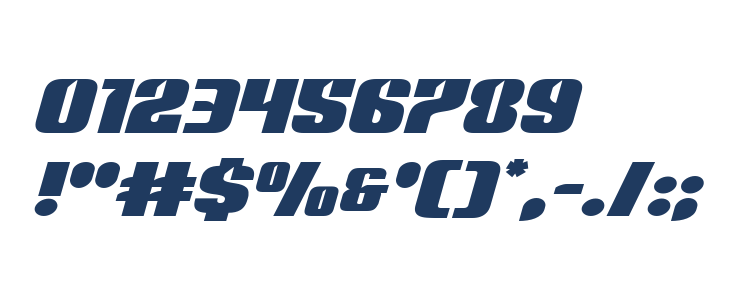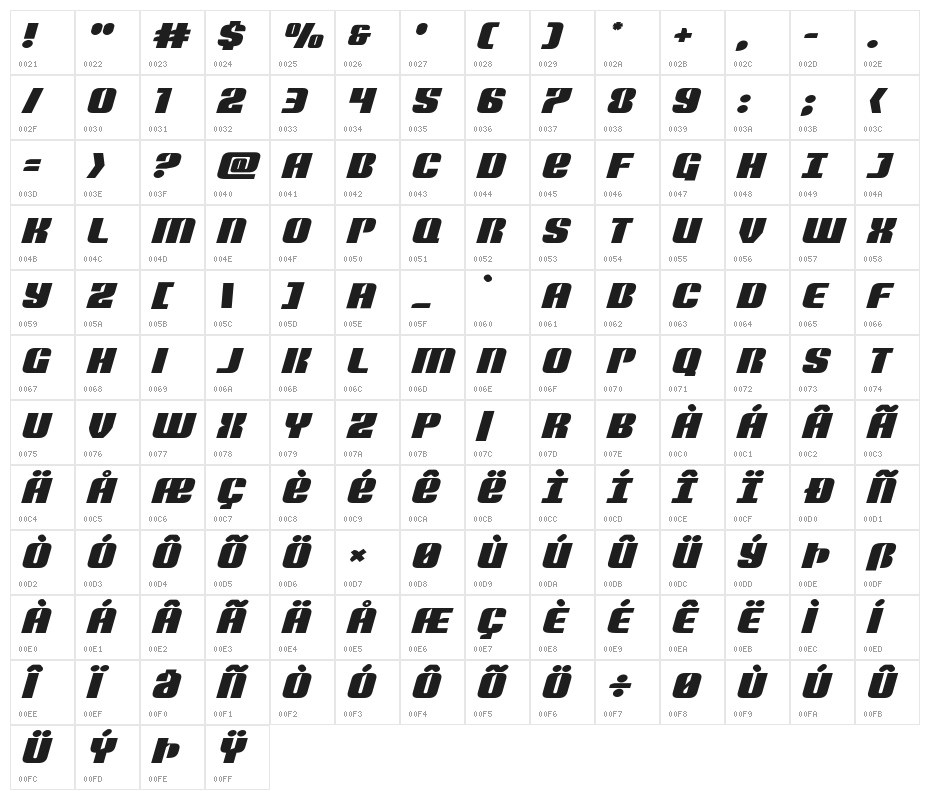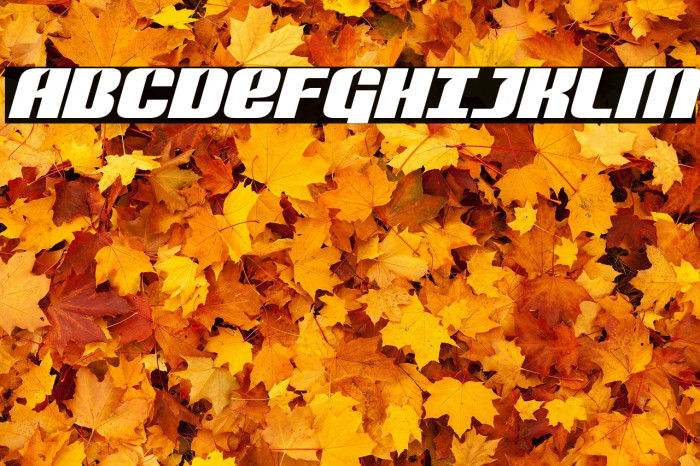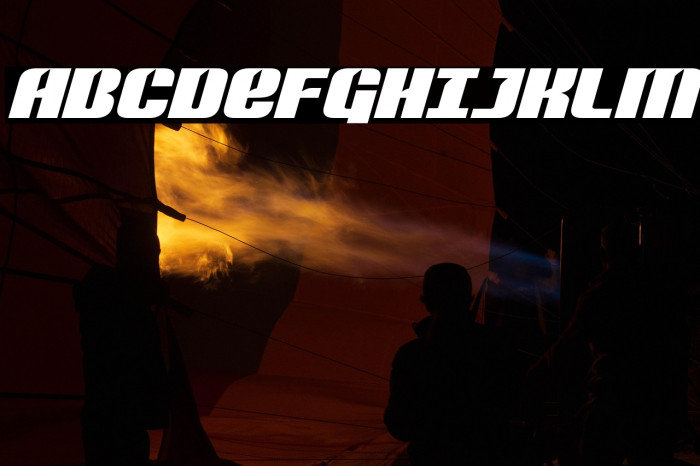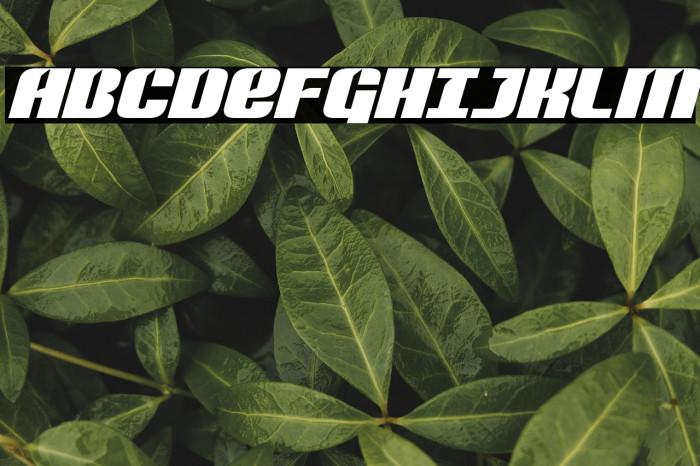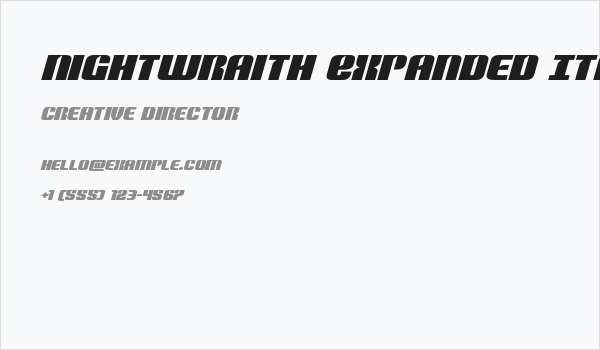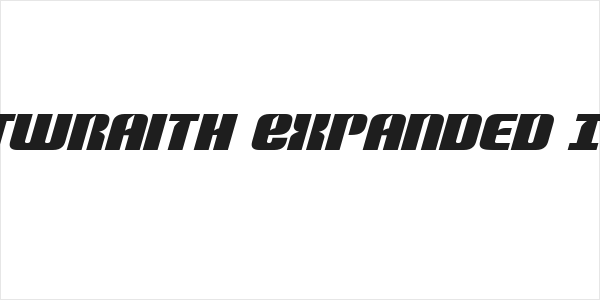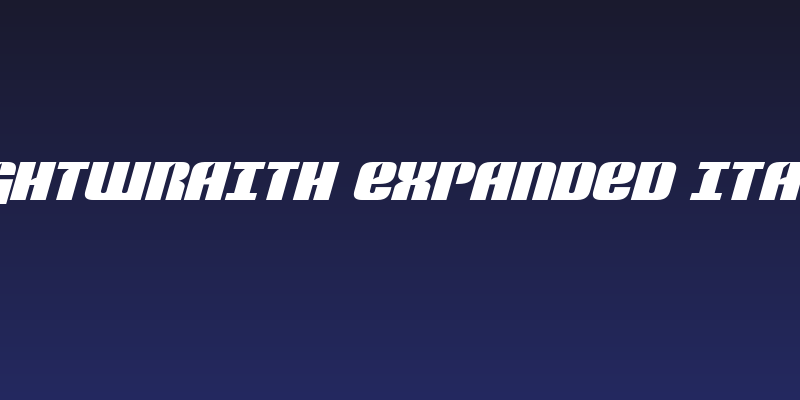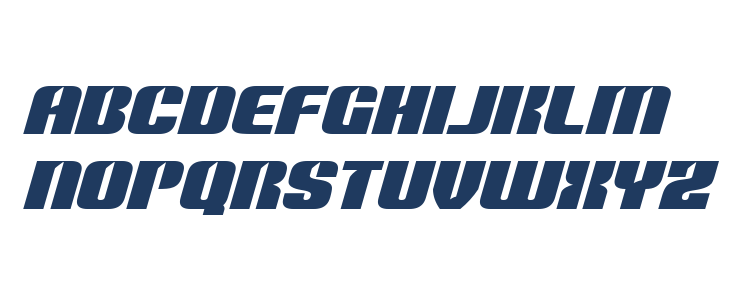
Nightwraith Expanded Italic Font
Nightwraith Expanded Italic Description
This font features a bold and dynamic design with an expanded and italicized style. The characters are robust and convey a sense of strength and movement, making them ideal for impactful visual statements. The uppercase and lowercase letters maintain a consistent width, enhancing readability while adding a modern flair. The numerals and special characters are designed to match the overall boldness, ensuring a cohesive look across all text elements. The font's design is suitable for projects that require a strong and assertive typographic presence.
| Proposed Projects | Ideal for sports branding, posters, headlines, and any design requiring a strong visual impact. |